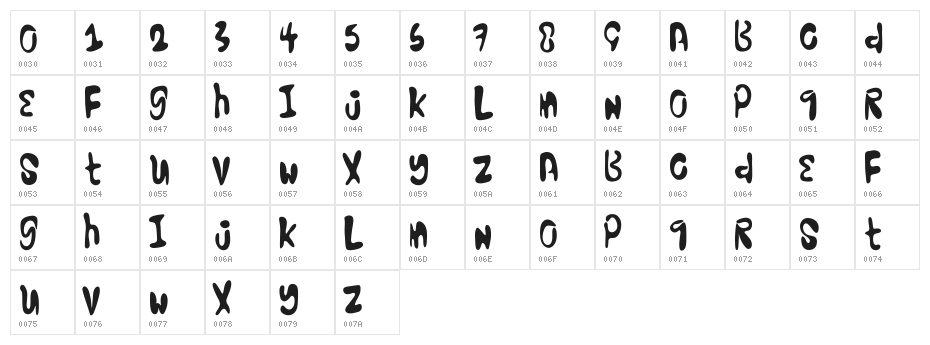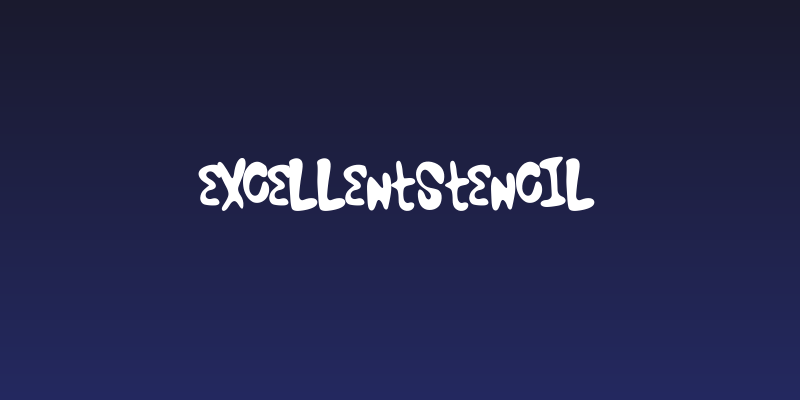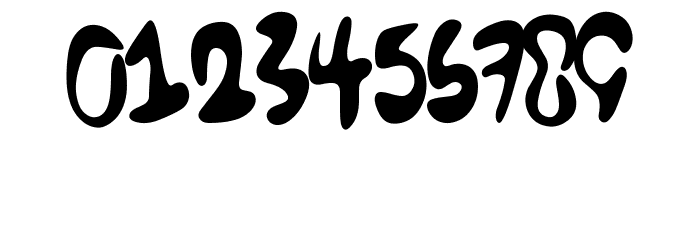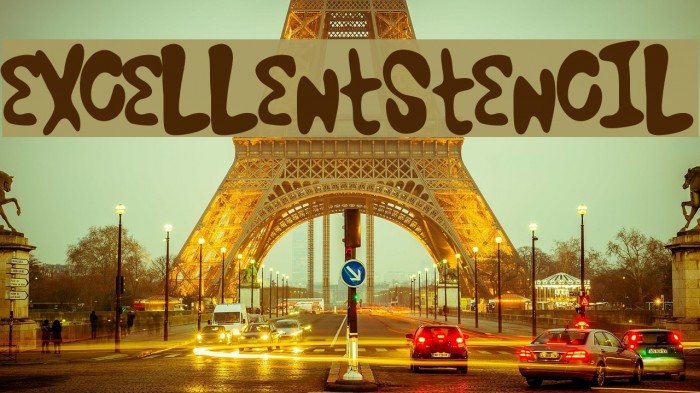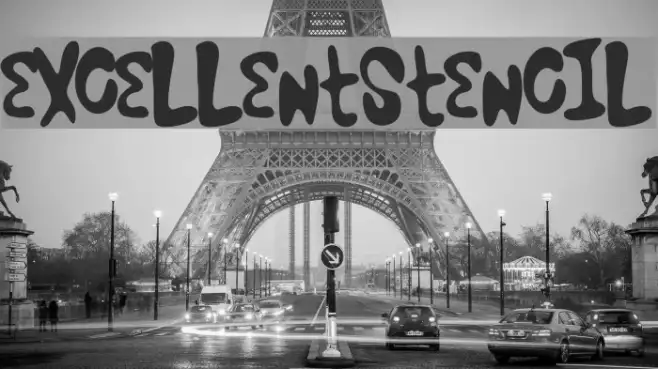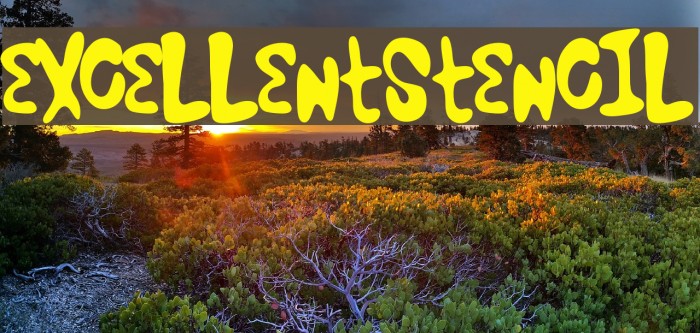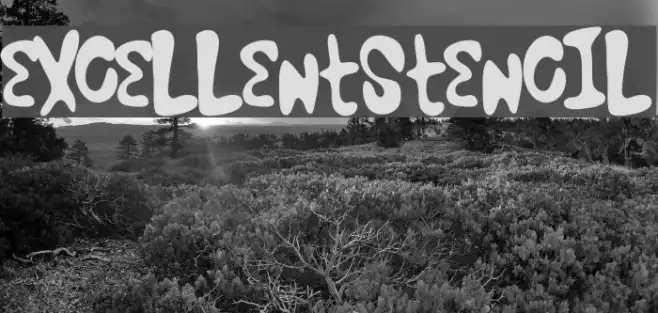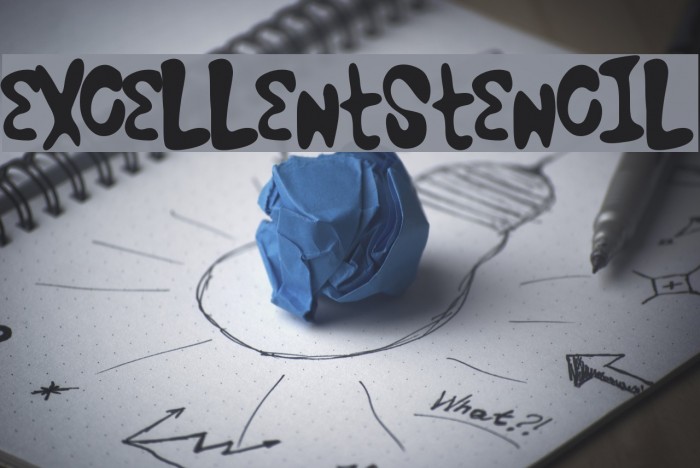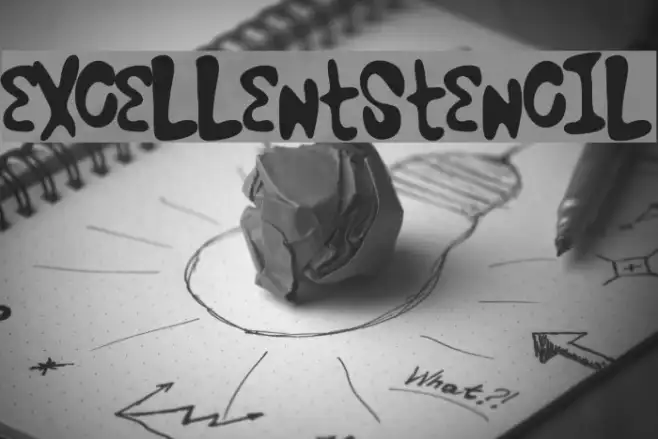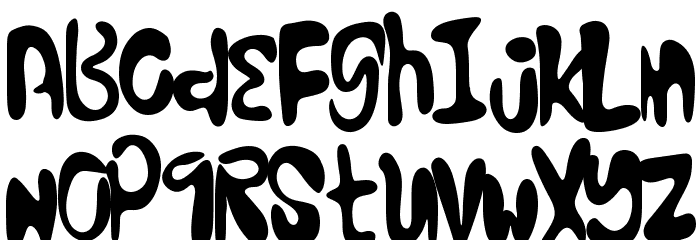
ExcellentStencil Font
ExcellentStencil Description
This font features a bold and playful design with a stencil-like appearance. The characters are rounded and have a fluid, organic shape, giving them a unique and artistic feel. The uppercase letters are particularly striking, with exaggerated curves and varying stroke widths that create a sense of movement and energy. The lowercase letters maintain this playful style, offering a cohesive look across the alphabet. Numbers and special characters are designed with the same boldness and creativity, making this font suitable for eye-catching designs. Its distinct style makes it ideal for projects that require a fun and dynamic visual impact.
| Overall Style | Playful, Artistic |
| Use Case | Headlines, Posters, Creative Branding |
| Proposed Projects | Ideal for posters, children's books, creative branding, and artistic projects. |